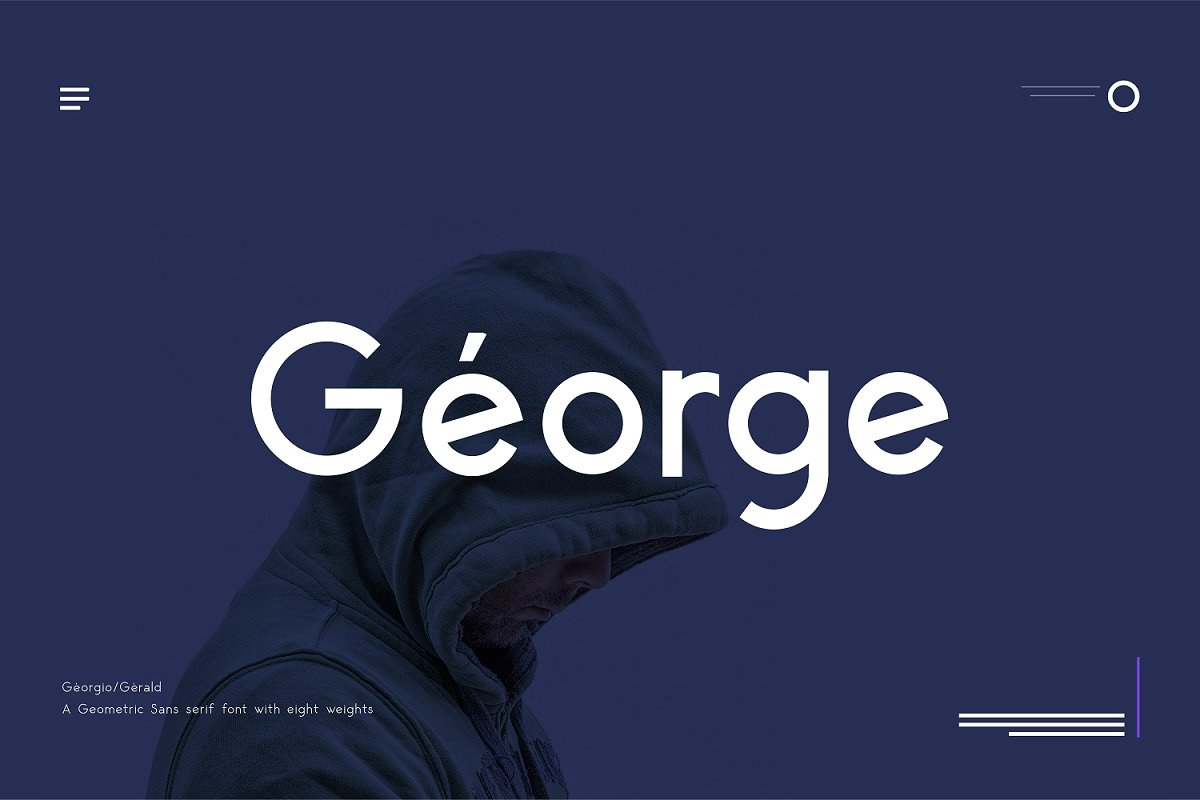
George Sans Geometric Font
George Sans Geometric Font is perfect for technology branding, architectural presentations, modern corporate identities, scientific research publications, engineering documentation, digital product interfaces, contemporary art installations, minimalist packaging design, progressive educational materials, systematic signage systems, clean web design, and precision-focused advertisements.
What makes George Sans Geometric Font exciting is its flawless geometric construction that achieves perfect harmony through pure mathematical relationships and systematic design principles. This masterful typeface represents the ultimate expression of geometric typography, combining precise circular forms with rational grid systems that create unparalleled visual consistency and clarity. The font's disciplined approach to letterform construction ensures optimal legibility while projecting an image of technical sophistication and methodical thinking. Its systematic character makes it ideal for organizations that value precision, logical reasoning, and evidence-based decision making in their visual communications.
The George Sans Geometric Font family includes ultra-light, light, regular, medium, semibold, bold, and extra-bold weights, each paired with matching italic styles. The comprehensive family features narrow and wide variations, providing designers with extensive geometric options for complex layout systems and multi-level information hierarchies.
Whether you're creating cutting-edge technology brands, designing scientific communications, or developing systematic corporate identities, George Sans Geometric Font Free Download delivers the mathematical precision your logic-driven projects demand. This premium geometric typeface excels in applications where accuracy and systematic thinking are fundamental to brand credibility and audience trust. The font's geometric purity works exceptionally well across digital platforms and technical print applications, making it an invaluable tool for designers serving engineering, technology, and scientific communities. Research institutions and technology companies choose this font for its ability to communicate methodical excellence while maintaining superior readability across complex technical documentation. The comprehensive character set supports over 180 languages and includes specialized mathematical symbols, expanding its utility for international technical applications and multilingual scientific publications. Professional designers appreciate its unwavering consistency and geometric integrity across all weights and styles. When you select this exceptional geometric typeface for your systematic communications, you're investing in a typography solution that celebrates rational design methodology and mathematical perfection, ensuring your brand projects authority, precision, and intellectual rigor while maintaining the geometric credibility essential for success in technology and science-focused markets.